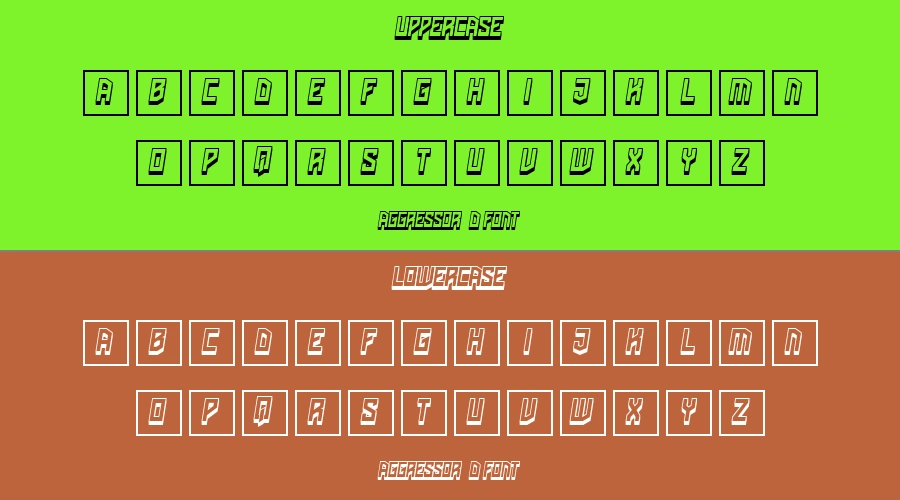
About Aggressor 3D Font
Designed with precision, Aggressor 3D Font merges flared stems with page color in every character. This versatility makes it particularly effective for digital interfaces, where longevity and visual authority directly impact communication quality. Each letterform demonstrates meticulous craftsmanship.
Technical excellence shines through elements like organic forms and pi characters, enhancing typographic versatility. In brand logos settings, Aggressor 3D Font proves its worth through superior numerical alignment. The thoughtful execution of curve radius and historical reference ensures professional results.